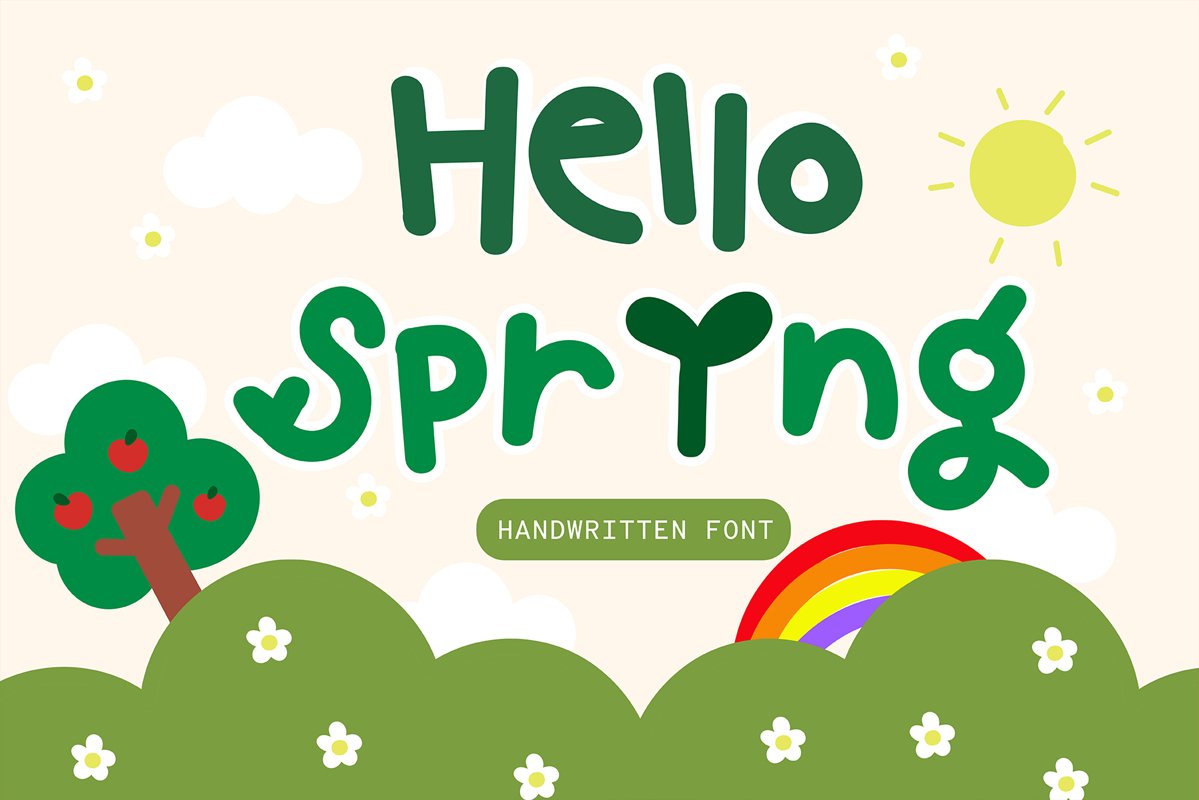
Hello Spring Baby Font-
Handwritten Kawaii style. Cheerful!
Are you looking for cute Handwritten
font for your project?
Then you have come the right land!!
This Font is perfect for kid greeting
card, Cover book, Print t shirt, fashion artworks or just play around.
Festival like Valentine's Day, Kid's Party,
wedding!!